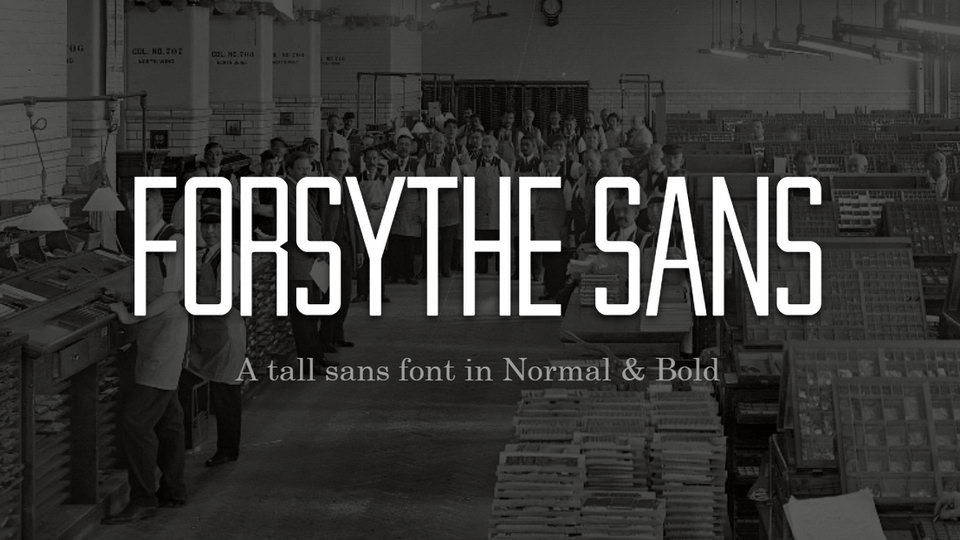
Download Forsythe font family, a tall allcaps sans serif typeface available in Normal and Bold weights. Ideal for eye-catching headlines and messages, signage, posters, covers and other displays.
Designer: Tristen Brown